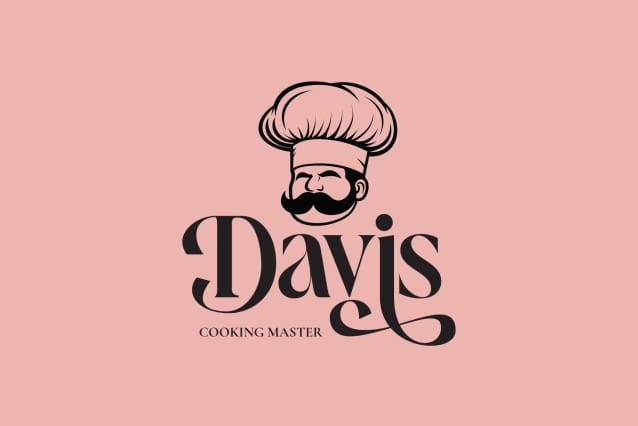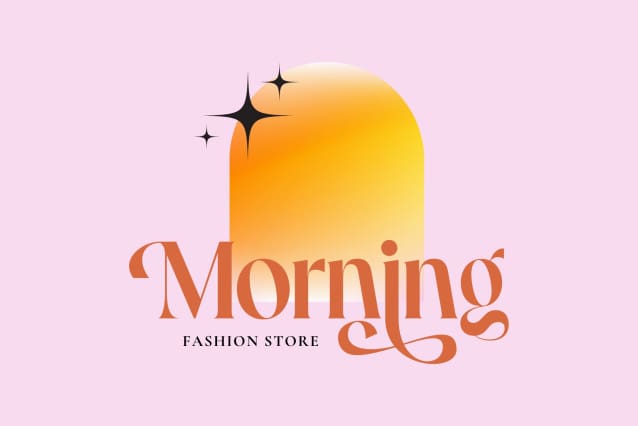
Vintage Roahe Font
Vintage Roahe Font offers beautiful typographic harmony for a diversity of design projects, including logos & branding, social media posts, advertisements & product designs.